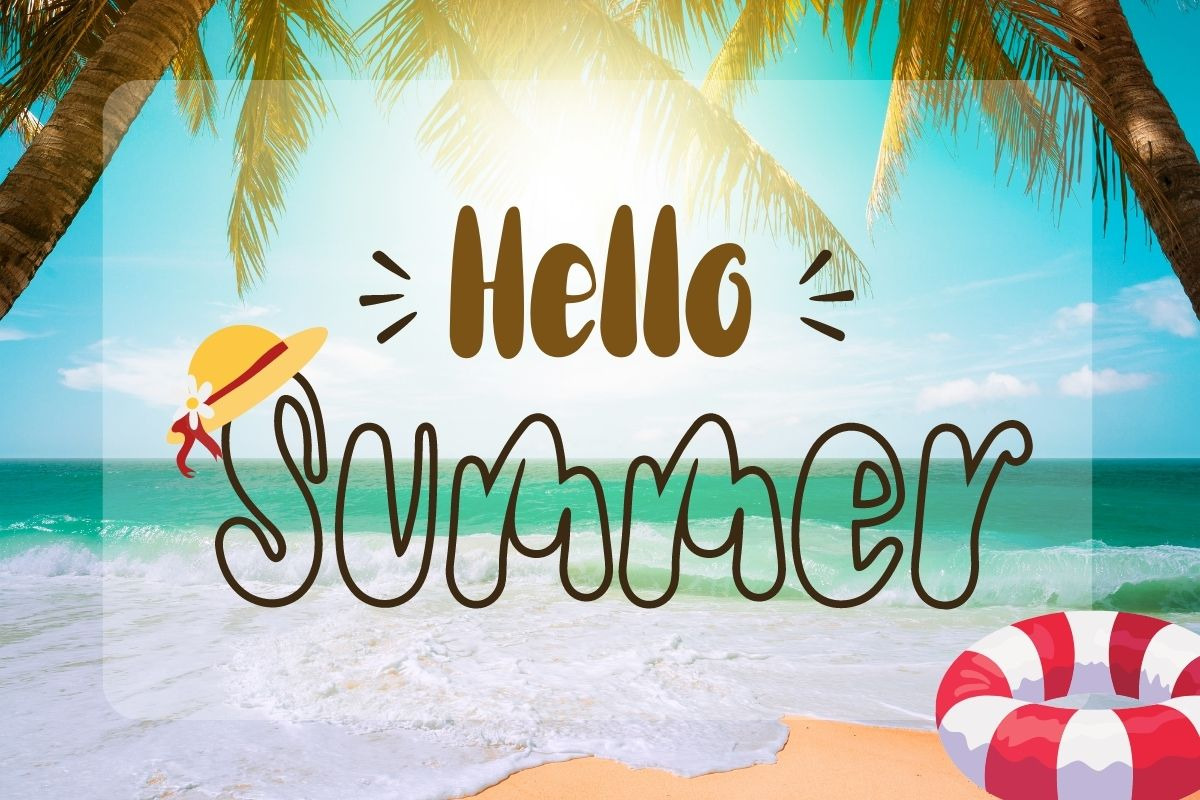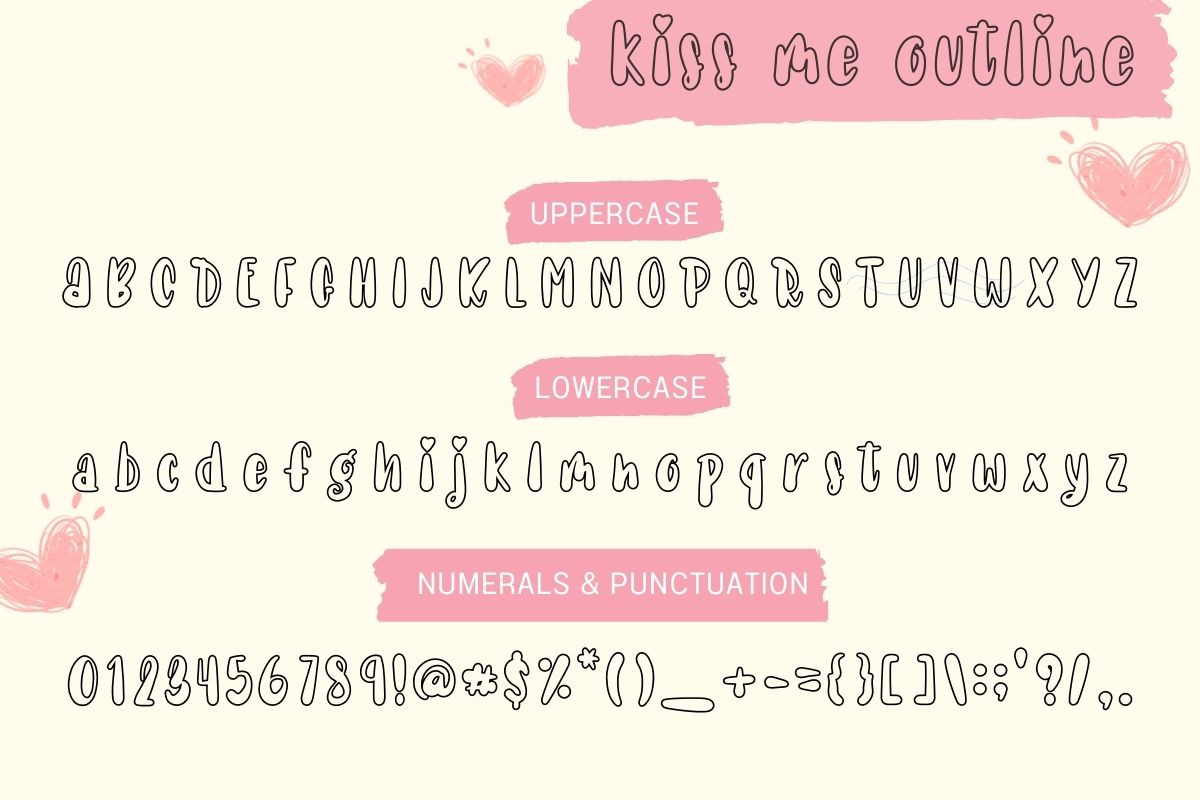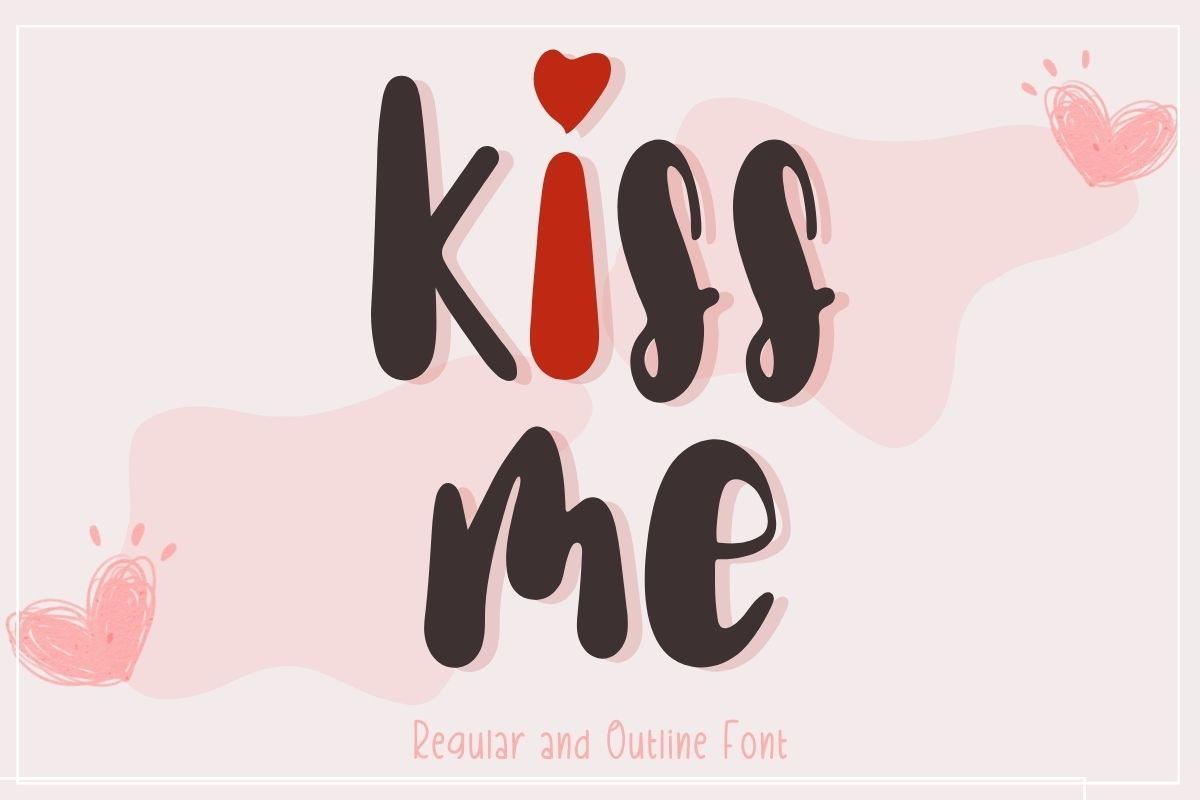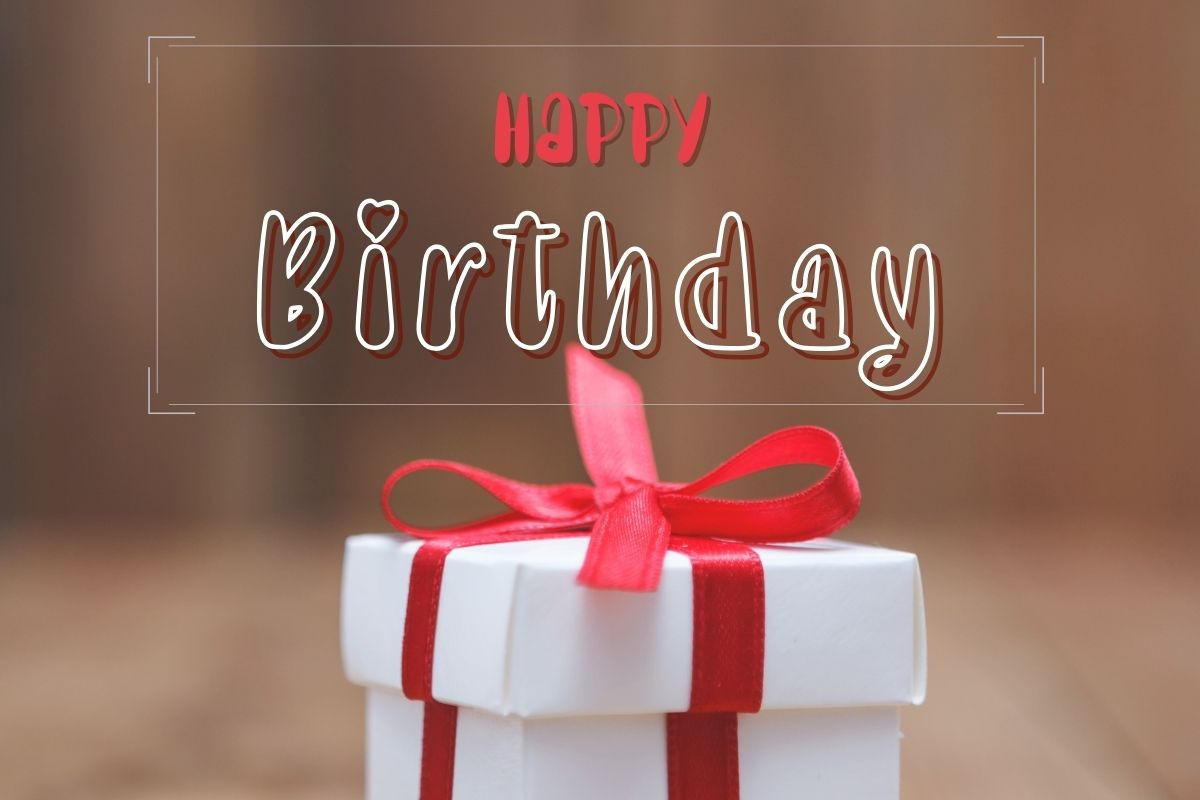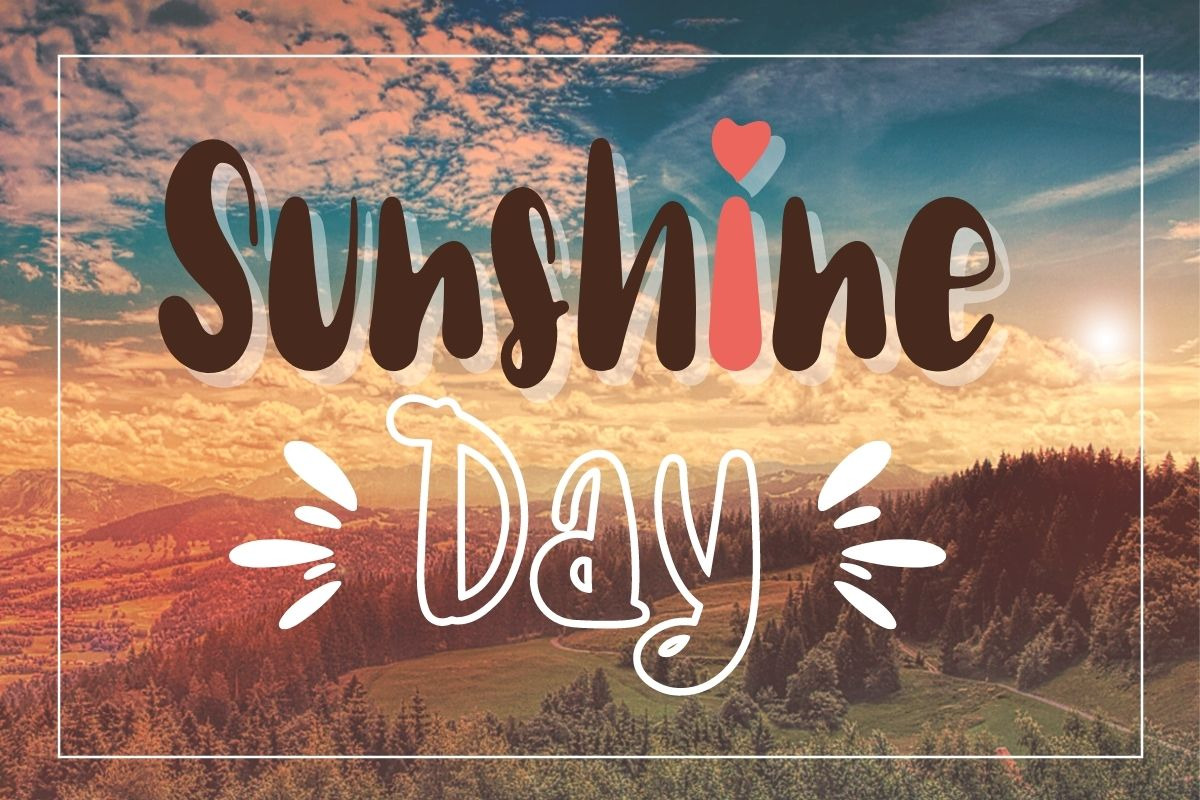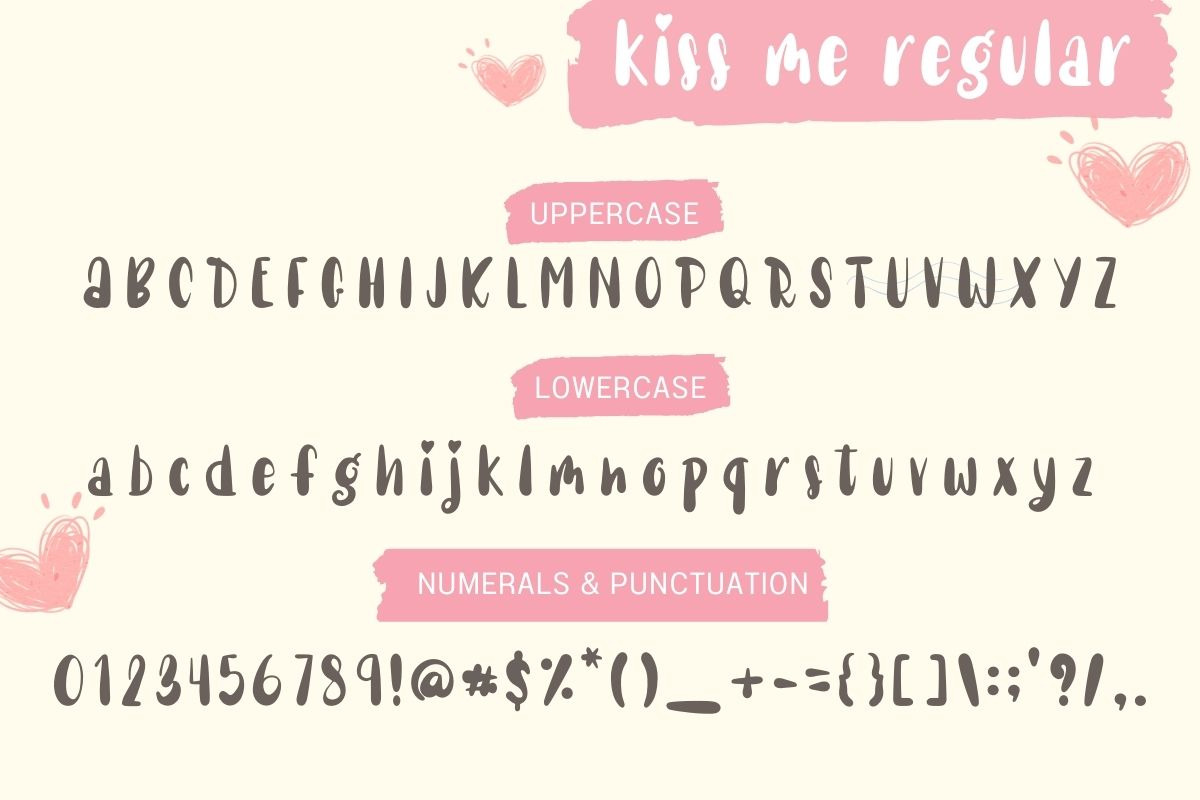
Kiss Me – Cute Handwritten Font
Kiss Me is a cute and playful handwritten display font featuring both Regular and Outline styles. Designed with soft rounded strokes and a charming hand-drawn feel, this font is perfect for adding a sweet, friendly touch to your designs.
With its fun personality and easy readability, Kiss Me is ideal for creatives who love cute, modern, and cheerful fonts.